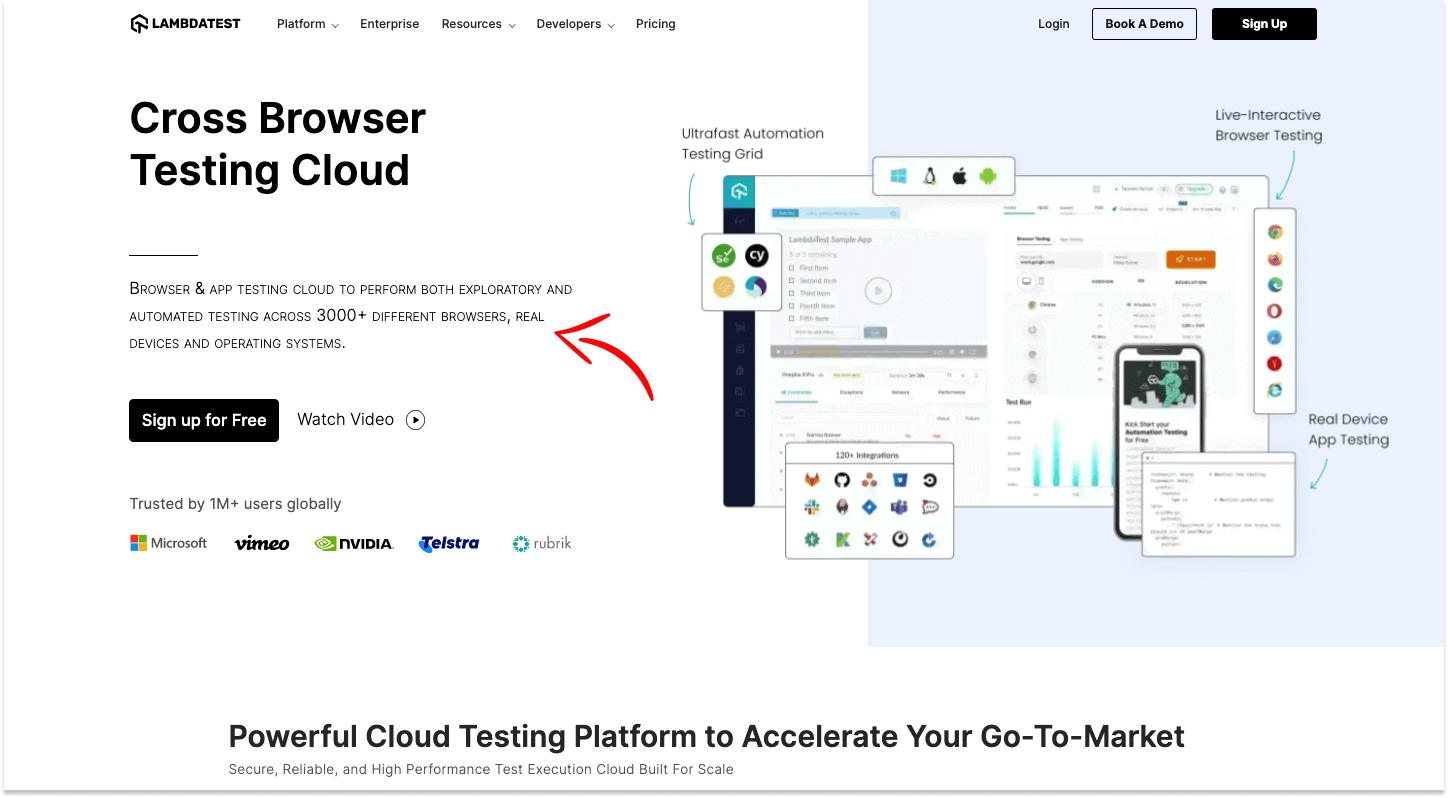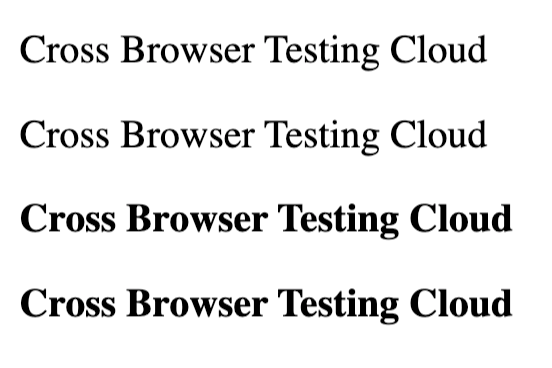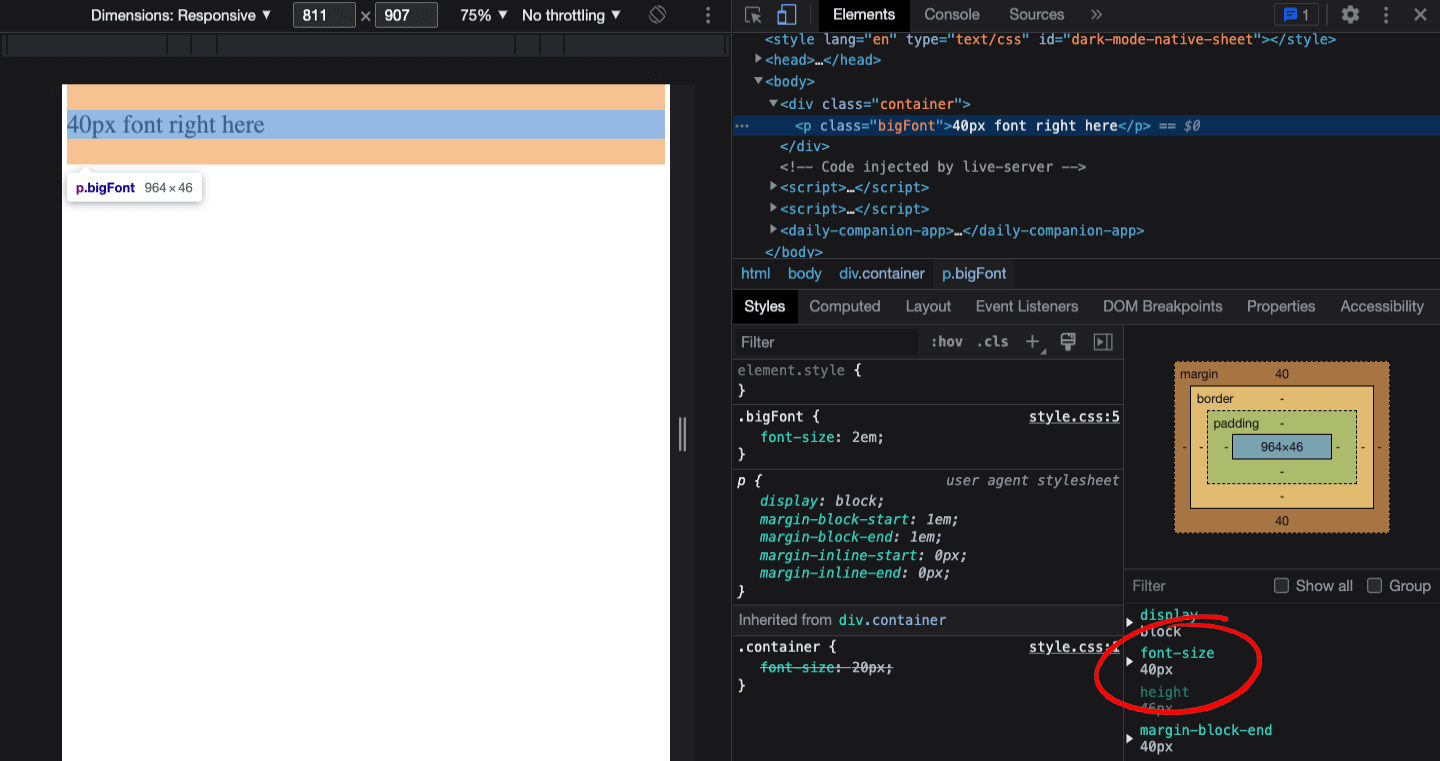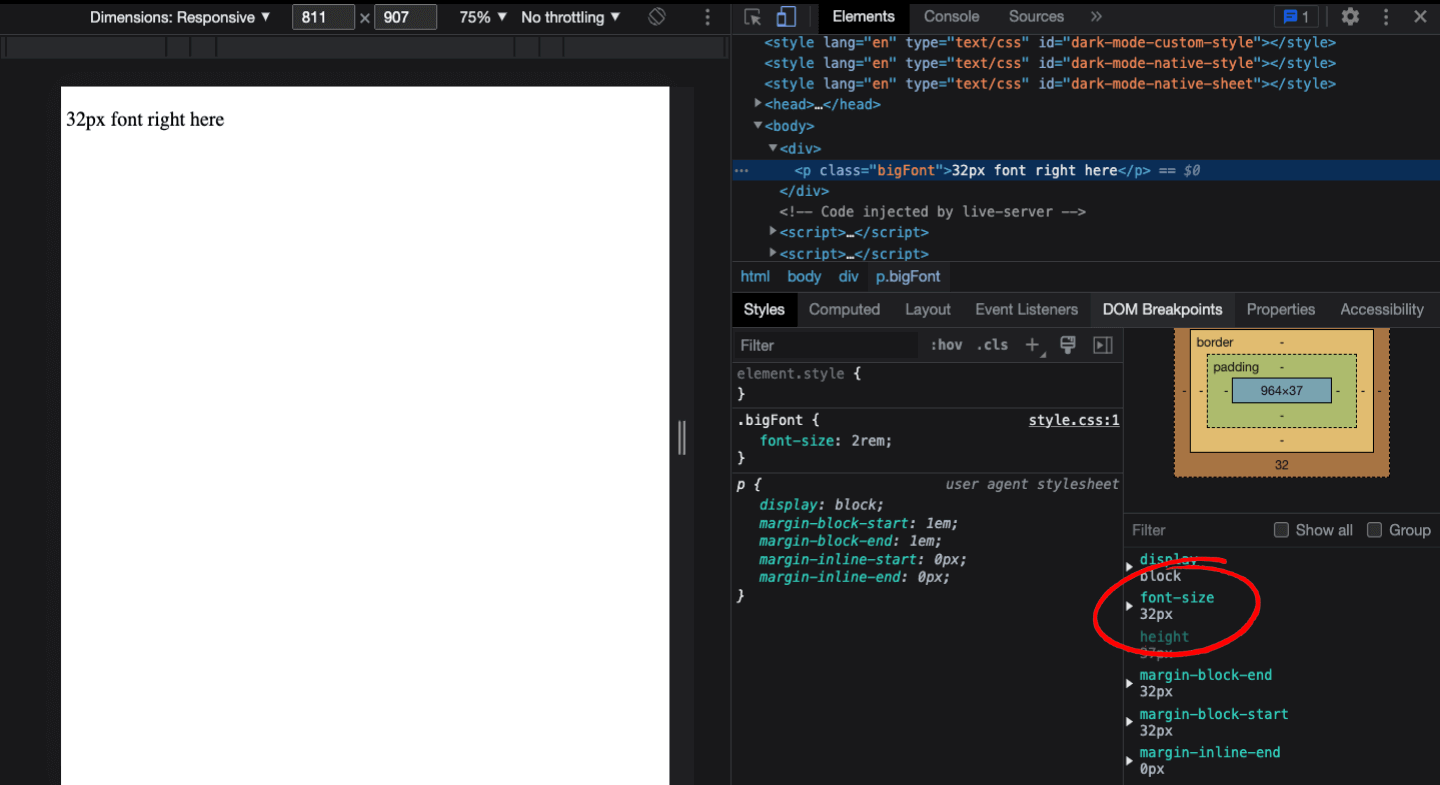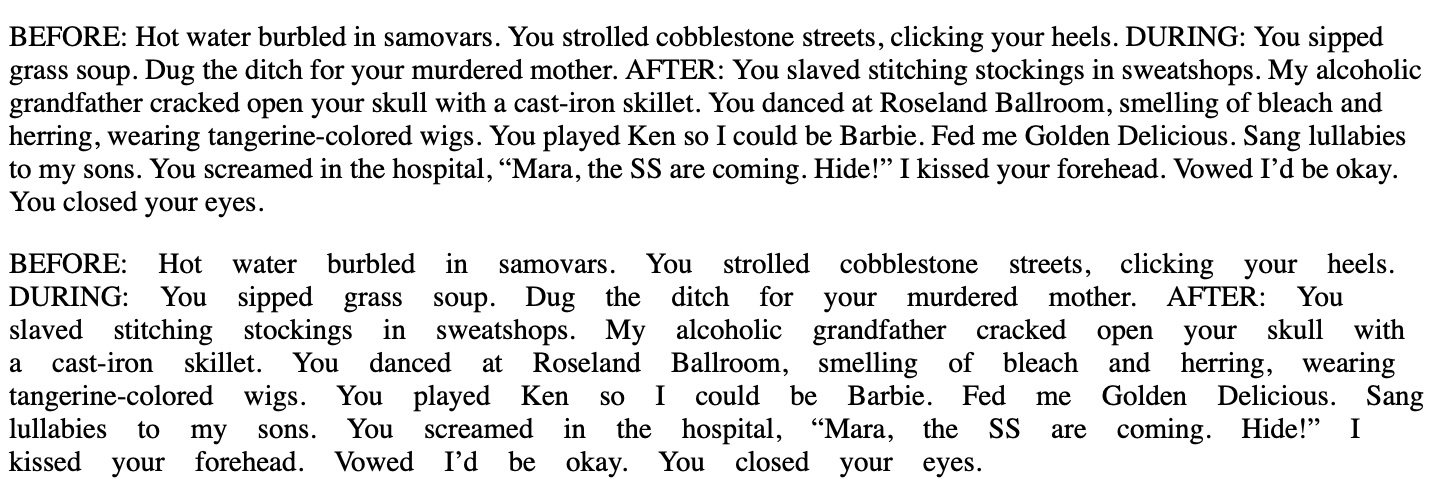
CSS Font Spacing Tips & Tricks For Perfect Typography
Discover the World of CSS Font Spacing: Delve into the art of typography, explore CSS techniques, and master the art of achieving perfect font spacing in CSS.
Typography and font spacing in CSS are important for creating a visually appealing and easy-to-read website. Typography refers to the art and technique of arranging type on a page, while CSS Font Spacing is used to establish an information hierarchy and convey the importance of different elements in a webpage.
Many web developers forget font typography and spacing in CSS form design. This would be less pleasing to the eye of the audience and likely much more complicated to navigate for the audience. The arrangement and structure of the fonts used and other minute details provide a way of communication between the visitor and the website owner.
As per the study, in just 15 seconds, the average person forms a first impression of any website design. Here is an example of how letter spacing can change the atmosphere of a website:
Text with normal letter spacing:
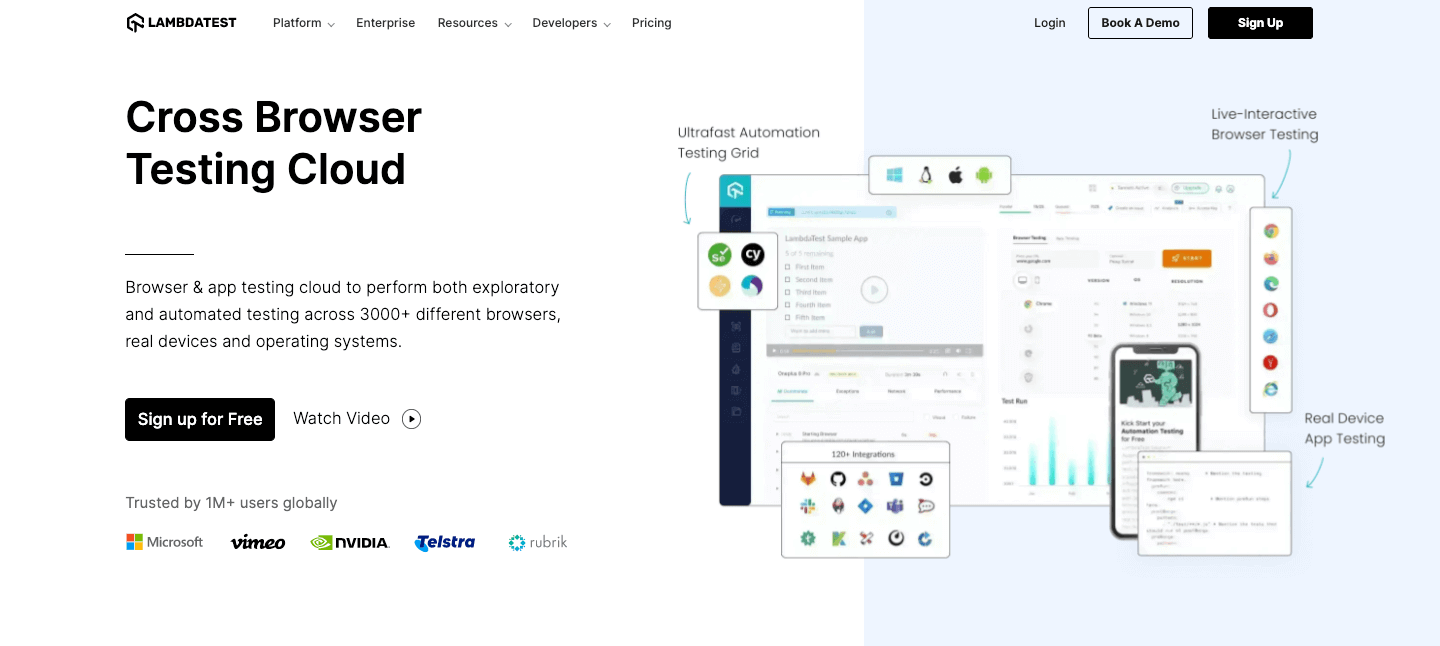
The title “Cross Browser Testing Cloud” with normal letter spacing looks balanced and easy to read, as the letters have a moderate amount of space between them.
Text with wide letter spacing:
The title “Cross Browser Testing Cloud” with wide letter spacing looks more relaxed and casual, as the letters have a lot of space between them.
As you can see, letter spacing can significantly affect the look and feel of the text and contribute to a website’s overall design. It is important to choose the appropriate letter spacing for the tone and style of your website. If you are looking to design your website, you can learn more about it through this blog on the best 23 web design trends to follow in 2023.
This blog on CSS Font Spacing will cover everything you need to know about typography and font spacing in CSS and the different ways of achieving that.
- CSS font spacing is controlled with three properties: letter-spacing for the space between characters, word-spacing for the space between words, and line-height for the space between lines.
- The em unit sizes text relative to the font size of the parent element, while the rem unit sizes text relative to the root font size, and px is a fixed absolute unit.
- Every font-family declaration should end with a generic fallback such as serif or sans-serif, so text still renders when the first font is unavailable.
- The CSS font shorthand sets font style, variant, weight, size, line height, and family in one line instead of five or more separate declarations.
- Readable web text runs about 50 to 75 characters per line on desktop and about 35 to 50 characters per line on mobile devices.
- Downloaded font files work offline, while direct font links from a service such as Google Fonts load faster on the page.
CSS Font Spacing: Common Terminologies
CSS letter spacing is a property in web design that adjusts the space between characters in text. Using the letter-spacing property, designers can modify the default font spacing to improve readability and aesthetics. It offers precise control over typography, enabling designers to achieve both compact and spaced-out text styles, ensuring the content is clear and visually appealing.
When it comes to typography, font spacing in CSS is just as important as font choice and size. In CSS, several different properties and terms are used to control text spacing, including letter spacing, word spacing, line spacing, kerning, tracking, leading, baseline, cap-height, and x-height. Understanding these common terminologies is essential for creating visually appealing and easy-to-read text on web pages.
In this section of this article on CSS Font Spacing, we will take a closer look at each of these terms and explain how they can be used to improve the overall appearance of your text.
Font Style
A Font Style describes the basic attributes of fonts such as normal, italic, and oblique. The code snippet below may help you to visualize better.
Font Family
A Font Family represents a collection of all the fonts with the same design characteristics. They can vary in size, weight, and style but share the same fundamental design characteristics.